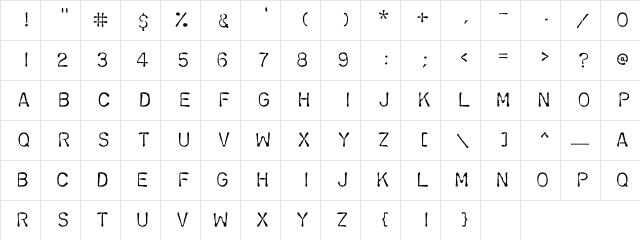
Chromosome Light Regular
Design Context for Chromosome Light Typeface
Chromosome Light offers clean, dependable letterforms without strong stylistic allegiance, making it a practical choice for designers who need flexibility. The delicate stroke weight brings airiness and refinement to layouts.